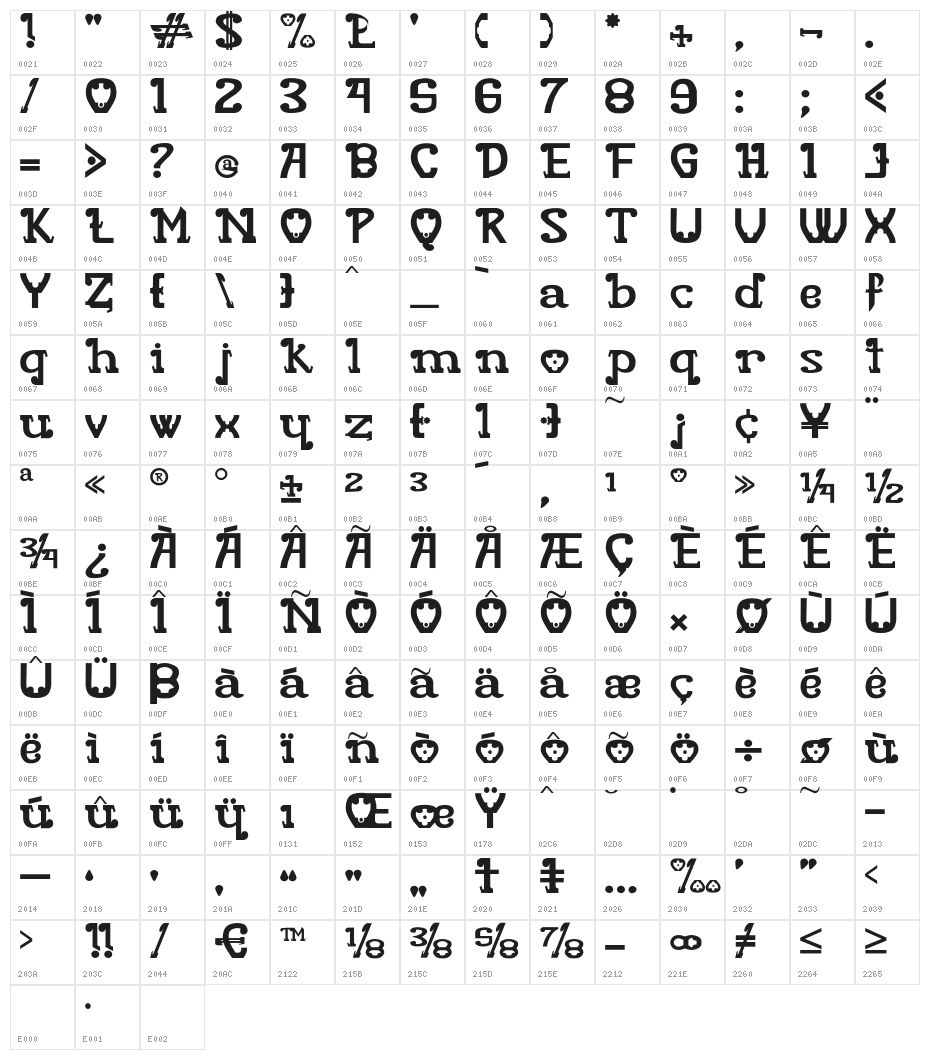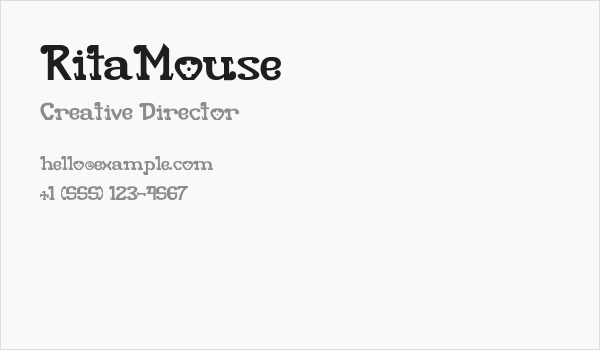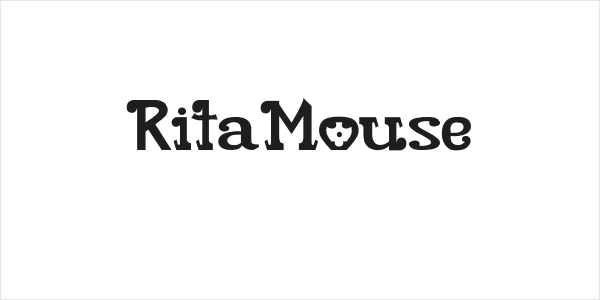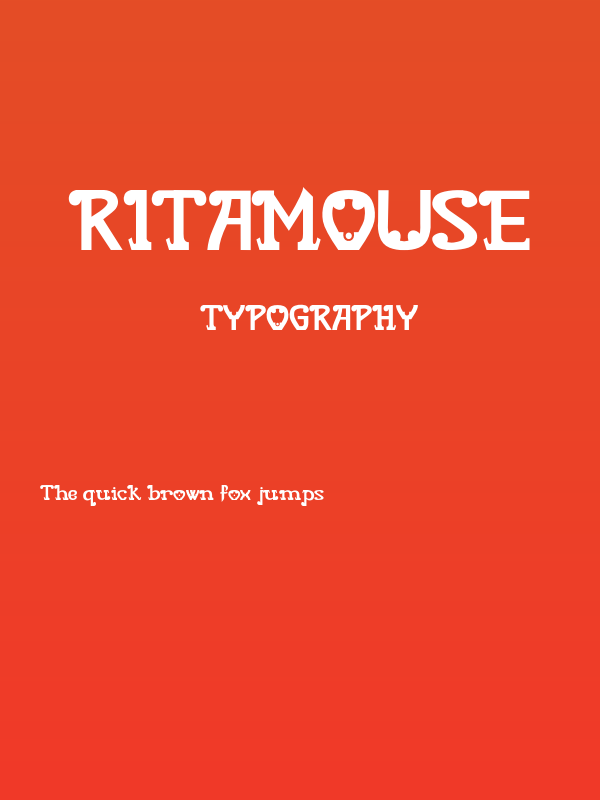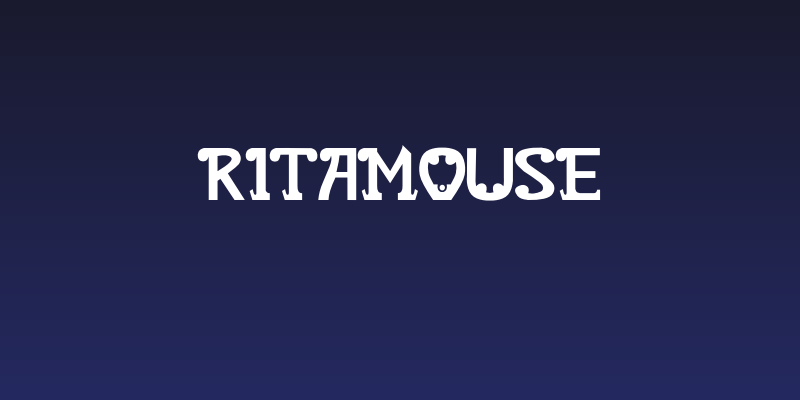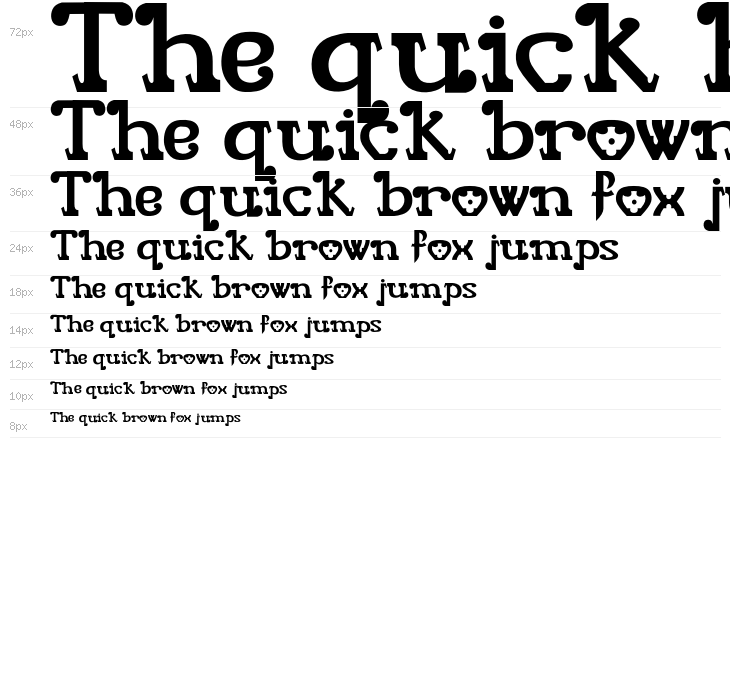
RitaMouse Font
RitaMouse Description
This playful and whimsical font features bold, rounded characters with unique cut-out shapes that add a touch of fun and creativity. The uppercase letters are distinct with quirky elements, while the lowercase maintains a consistent style. Numbers and special characters follow the same playful theme, making it ideal for projects that require a lighthearted and engaging look. The font's design is reminiscent of cartoon or comic styles, with a strong emphasis on visual appeal and character.
| Overall Style | Playful, Whimsical, Cartoon |
| Proposed Projects | Ideal for children's books, comic strips, playful branding, party invitations, and creative posters. |